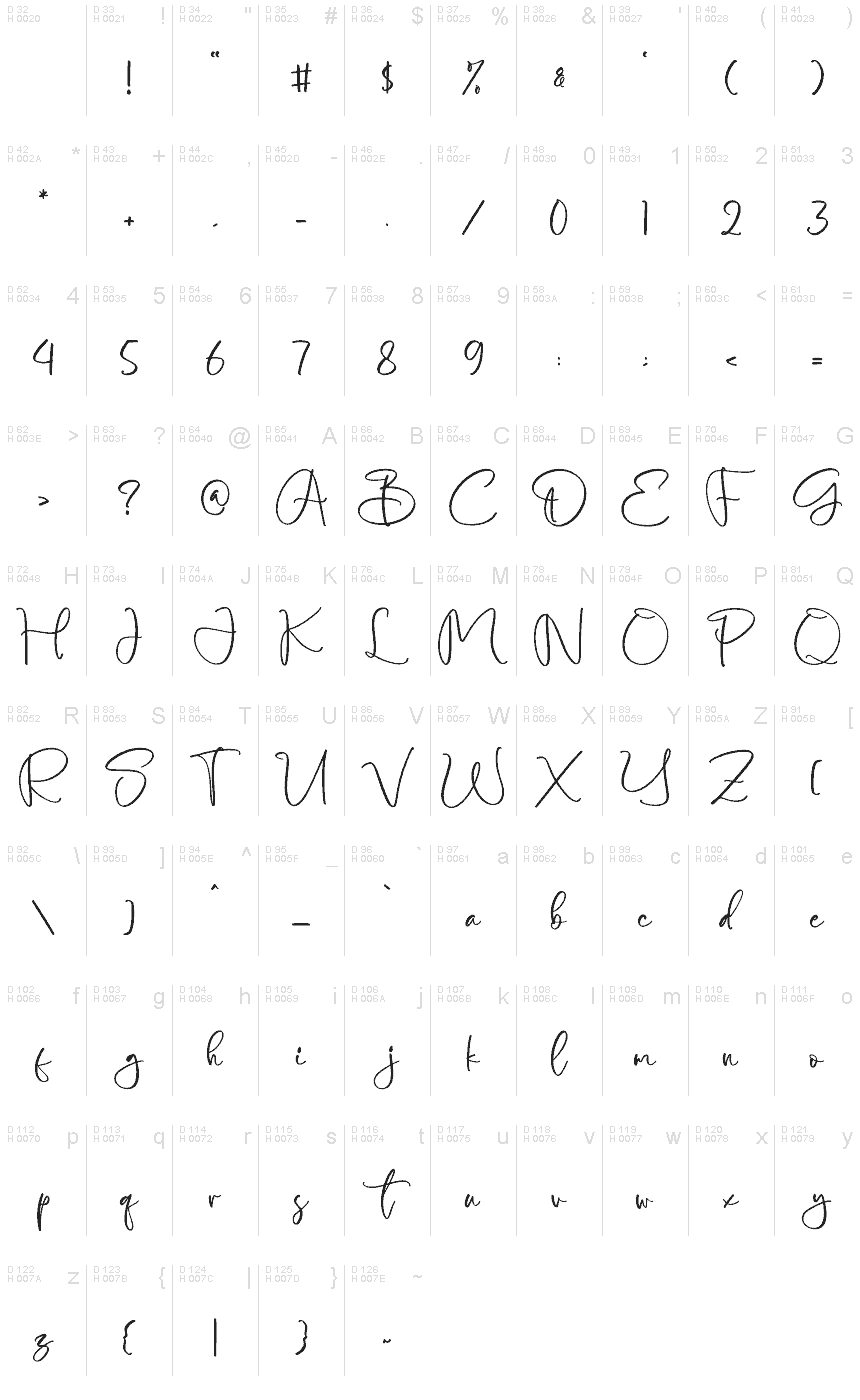
Bloockwet
Bloockwet font by Letterena Studios is a handwritten light font that beautifully combines elegance with artistic flair. Flowing lines and decorative flourishes give it an expressive and modern script style, offering an effortlessly casual yet sophisticated appearance.
This free handwritten font is perfect for greeting cards, invitations, logos, book covers, photography projects, posters, branding designs, quotes, social media content, magazine layouts, and apparel designs.